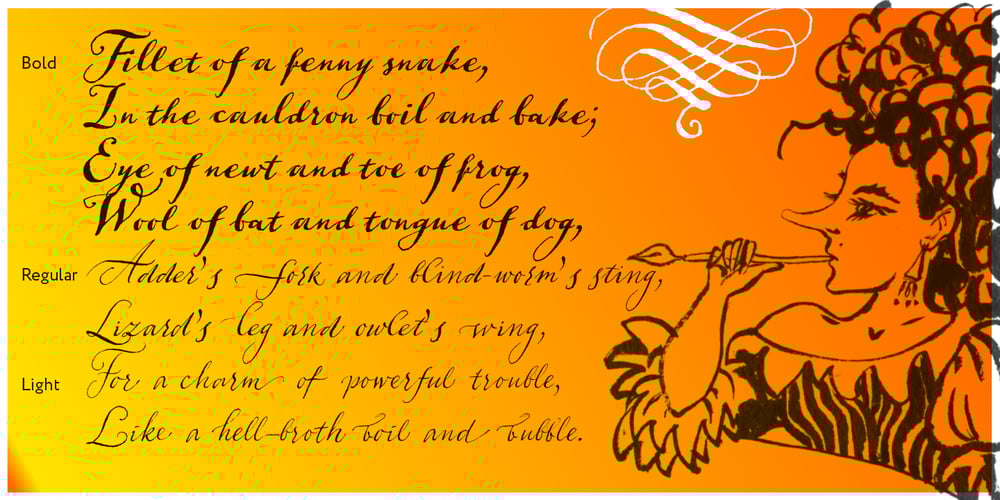
Aphrosine Font Family was designed by Alexandra Korolkova, Alexander Lubovenko and published by ParaType. Aphrosine contains 3 styles and family package options. Aphrosine is a font based on pointed pen script. A huge lot of alternatives and smart OpenType features allow it to look almost indistinguishable from real live handwriting. Aphrosine is something between handwriting and calligraphy: it took too much effort for being “just handwriting” but lacks seriousness and regularity comparing to true calligraphic fonts. That’s why it was called after a peculiar character from a children’s book: a witch who was very fond of dressing, makeup and writing letters. Aphrosine has three faces. But unlike most other type families, the glyphs from one face do not match exactly the glyphs from another one. The faces are based on writing with different nibs but by the same hand. The type is designed by Alexandra Korolkova and Alexander Lubovenko and released by ParaType in 2015.